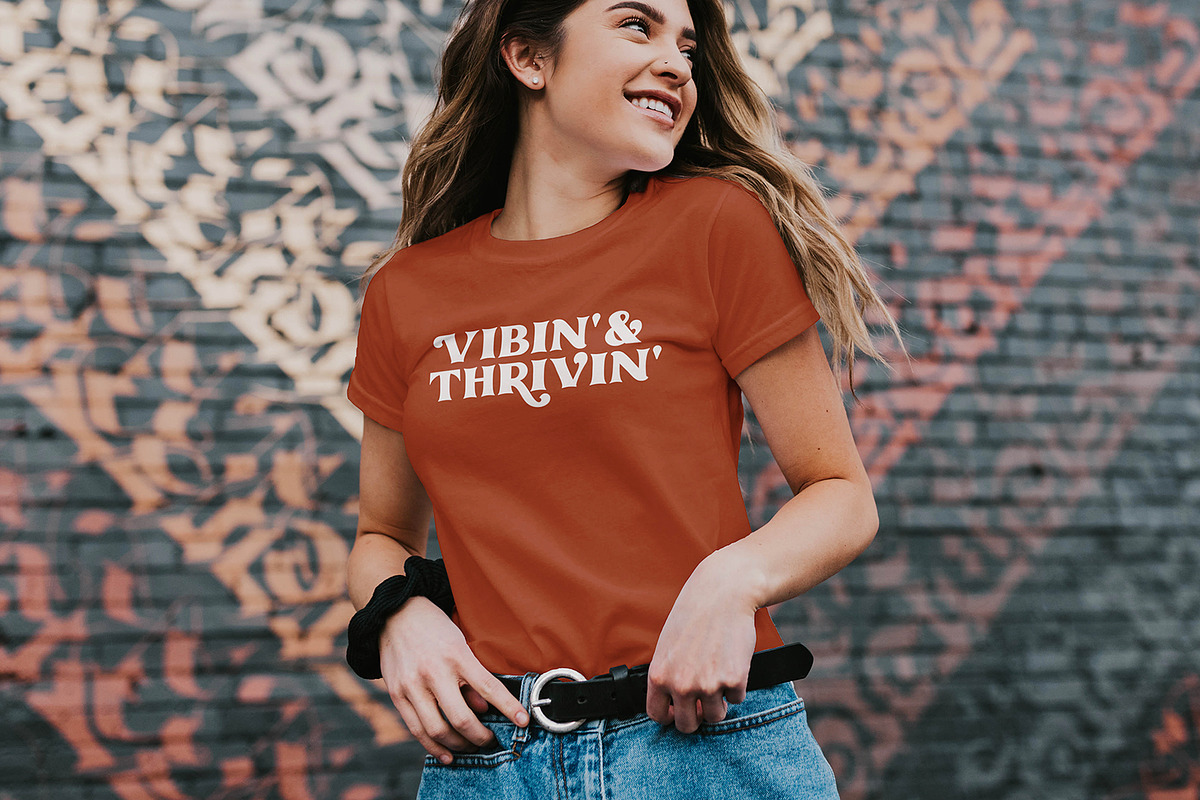
Wicked Hearts is a chunky serif font with an edge – it’s a cool modern take on a retro classic, and it’s ready to make a lasting impression on your merchandise, quote designs, header text, logos & branding, advertisements and much more. It’s packed with plenty of alternates and ligatures to bring it to life, and give you a wide range of customization options.
Wicked Hearts • A chunky retro serif font containing upper & lowercase characters, numerals, a large range of punctuation & special characters.
Wicked Hearts Italic • A second, italicised version of the Wicked Hearts Serif font.